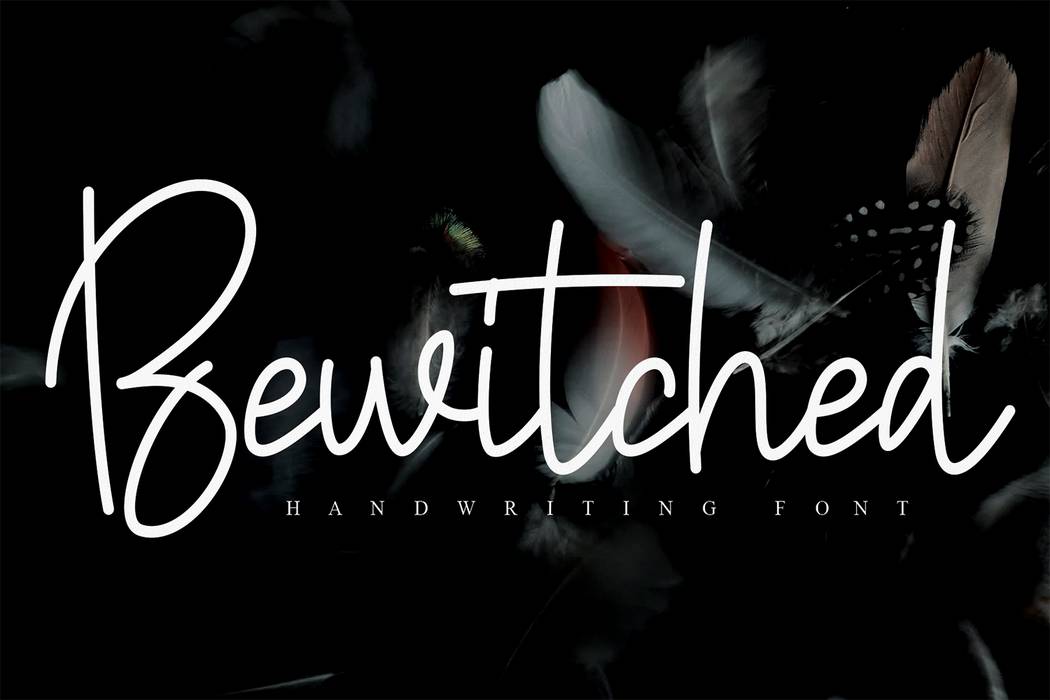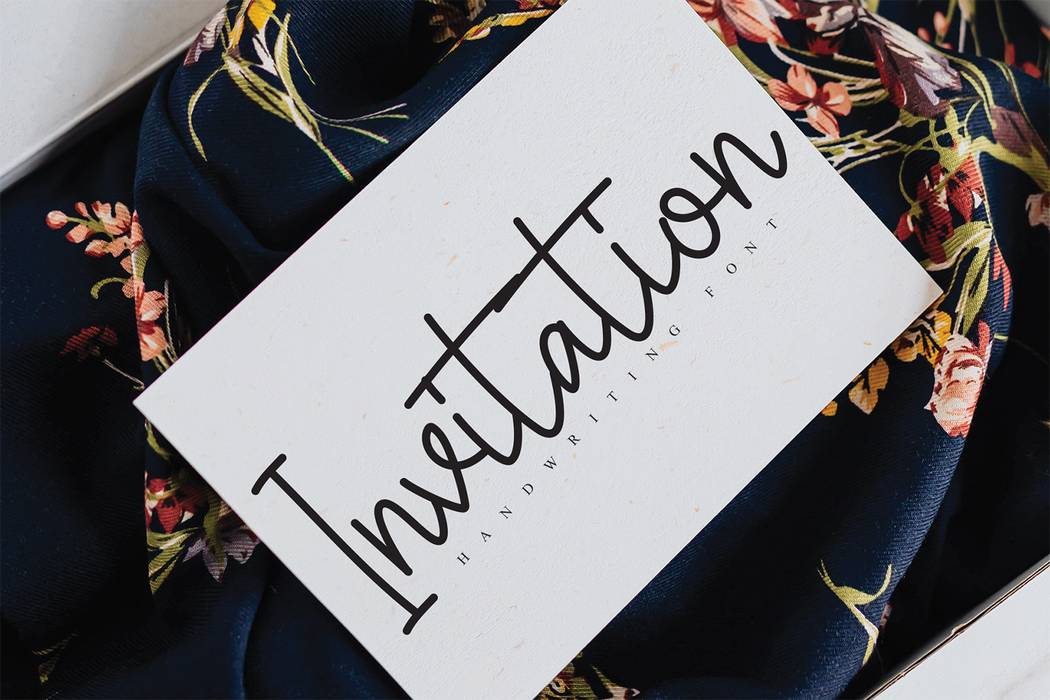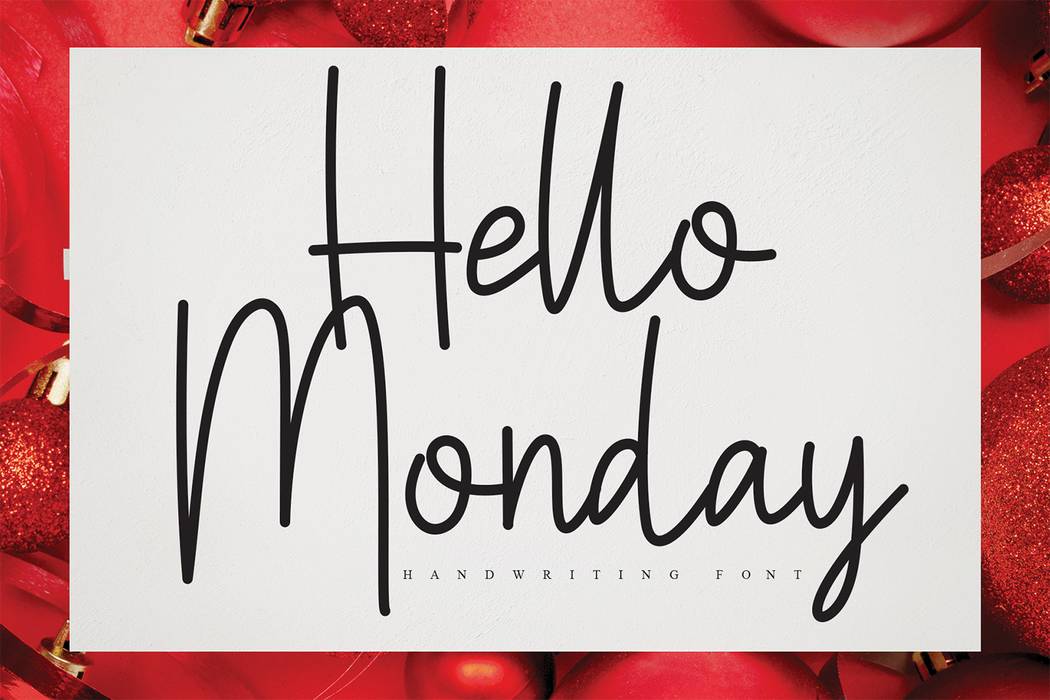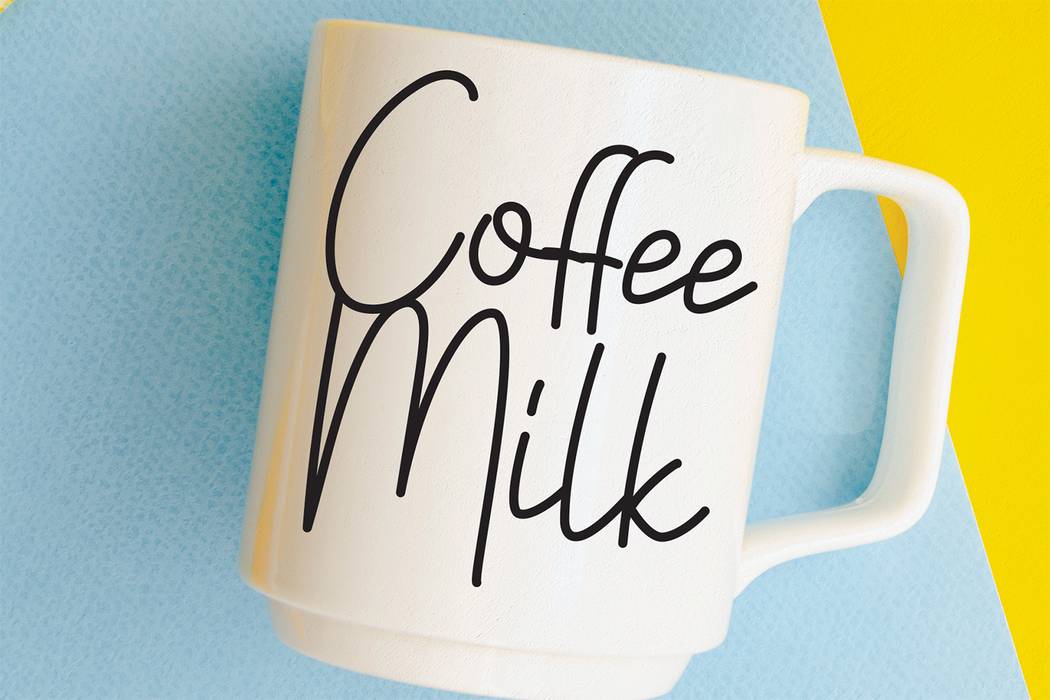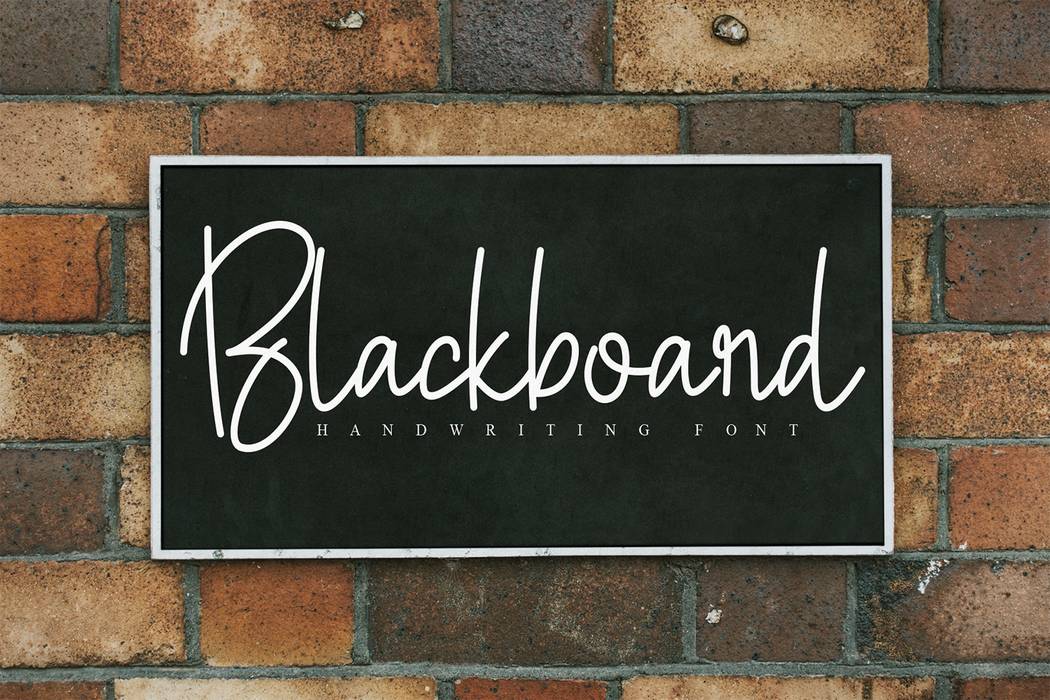
Bewitched is a delicate handwritten script font featuring tall, slender letterforms with a playful, whimsical character. Its thin, smooth strokes and casual flow make it ideal for creative projects that seek a personal, approachable feel, such as invitations, branding, and social media designs. This font’s light and airy style adds charm and friendliness while maintaining readability in larger display uses.
Bewitched Font
About Bewitched Font